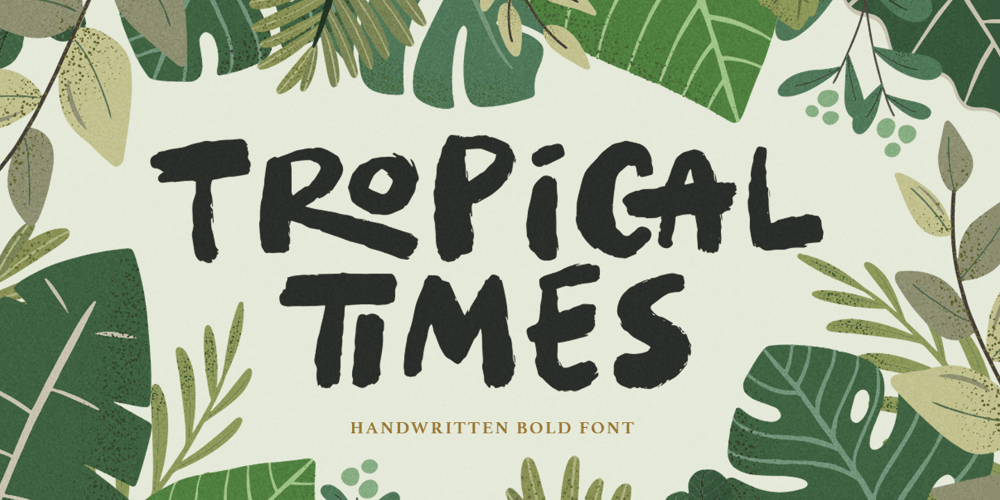
Tropical Times Font Family was designed by Sarid Ezra and published by Sarid Ezra. Tropical Times contains 1 styles and family package options. Introducing Tropical Times – a handwritten tropical vibes font Tropical Times is a bold handwritten typeface with tropical and summer vibes. You can use this font for any purpose, especially for quotes, branding, book cover, or even merchandise. With stylish ligatures that will make your project more natural and handmade.This font also support multilingual.